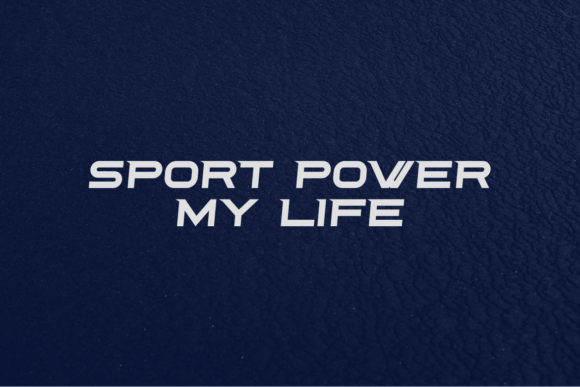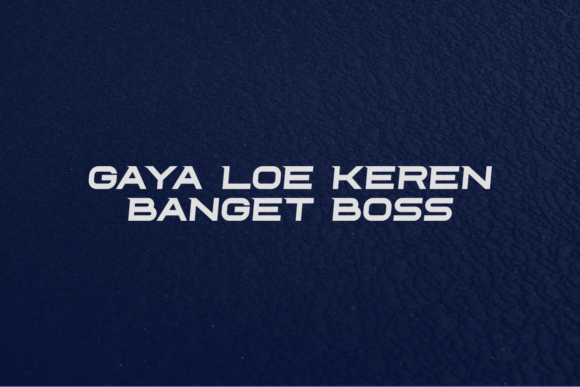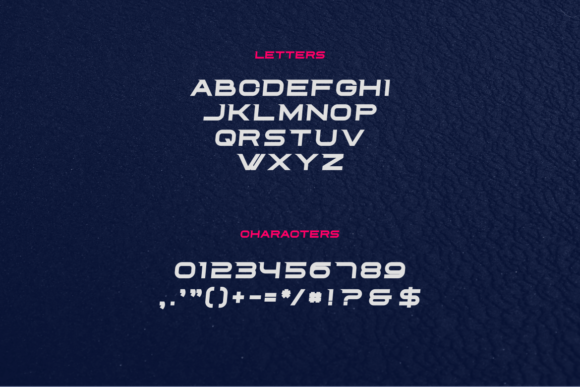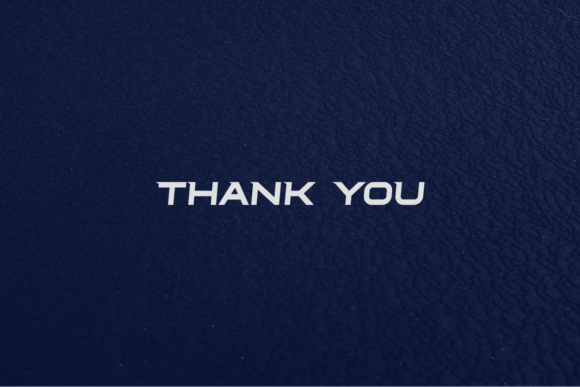
Introduction to Jhecroshi Font
Have you ever been in the middle of a creative project, staring at a blank canvas or screen, desperately searching for that perfect font to bring your idea to life? It’s a feeling we’ve all been there, and it’s frustrating. But what if you stumbled upon a font that not only elevates your design but also adds a touch of magic to it? Enter the Jhecroshi Font, a modern yet whimsical display font that’s about to become your new design best friend.
As a valuable design resource, the Jhecroshi Font is perfect for any creative project that requires a high-quality, eye-catching font. With its transparent background, this font can be easily layered over any design element, giving you complete control over the final look. And the best part? It’s available for free download, making it an accessible addition to your design arsenal.
Key Features of Jhecroshi Font
- Unique, creative design: Jhecroshi Font is a high-quality design resource ideal for use in various creative projects.
- Transparent background: This font features a transparent background, allowing for seamless integration with other design elements.
- Vector-based design: The font is built using vector graphics, allowing for scalability and flexibility in design applications.
- Perfect for digital projects: Jhecroshi Font is ideal for use in digital design projects, including website headers, social media graphics, and more.
Honest Review: Jhecroshi Font
As a designer, I’m always on the lookout for high-quality design resources to elevate my creative projects. The Jhecroshi Font caught my attention, and I decided to give it a try. Here’s my honest review.
What works well: ✨ The Jhecroshi Font is a free download, making it a fantastic addition to any designer’s toolkit. It’s a great resource for projects that require a unique, eye-catching font. The font’s design is sleek and modern, with clean lines and a transparent background that makes it easy to overlay on any image.
However, there are some limitations: ⚠️ The font’s character set is limited, and it may not be suitable for projects that require a wide range of characters. Additionally, the font’s weight and style options are limited, which may not be ideal for designers who prefer a more customizable font.
Overall, the Jhecroshi Font is a solid choice for designers who want a free, high-quality font for their creative projects. While it has some limitations, its unique design and transparent background make it a great resource for designers who want to add a touch of elegance to their work.
- Unique, modern design
- Limited character set
- Limited weight and style options
The Jhecroshi Font is ideal for a variety of creative projects, including branding, advertising, and graphic design. Use it for headings, titles, or body text in your designs, and take advantage of its high-quality rendering and transparent background to create stunning visuals.